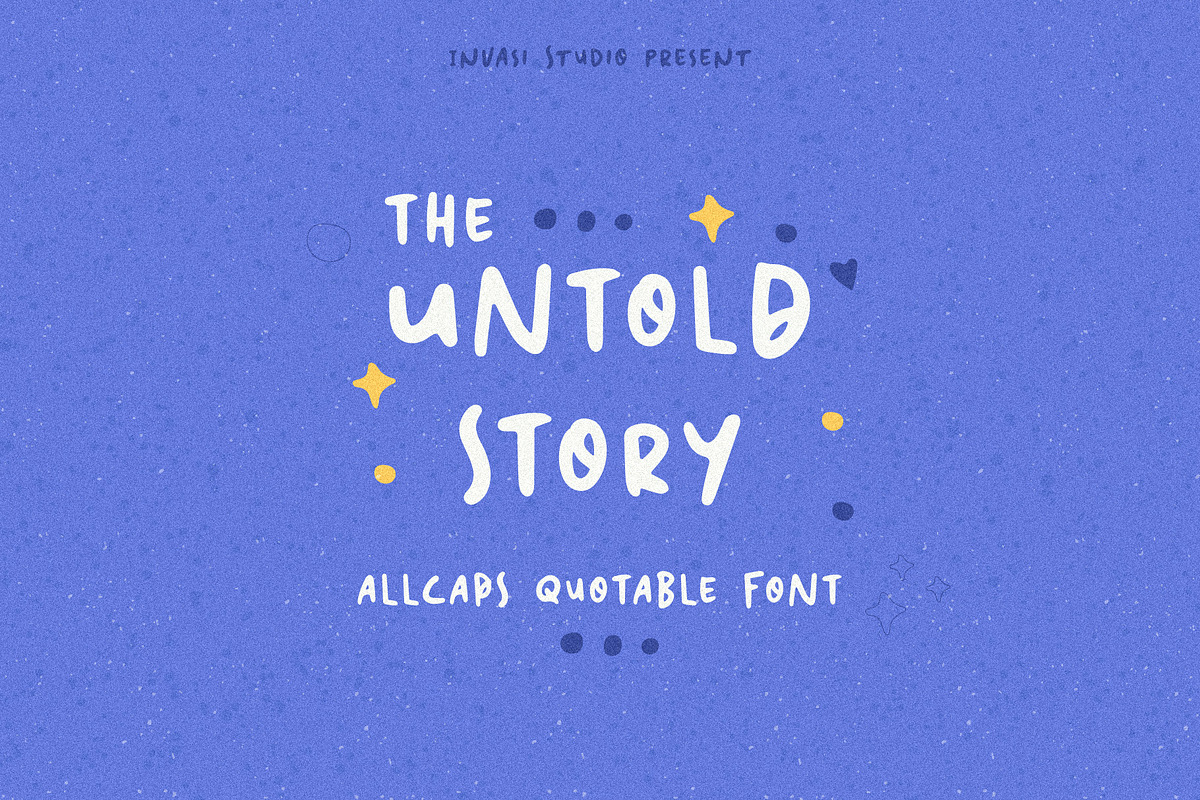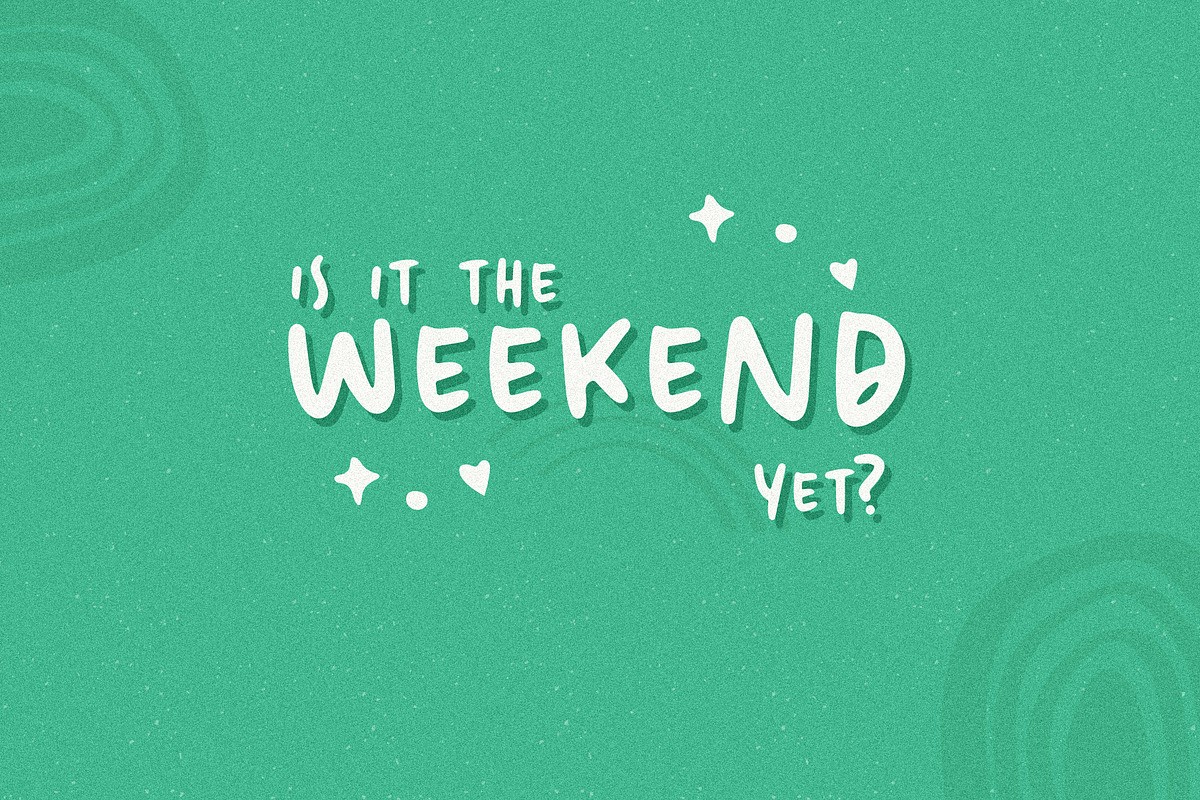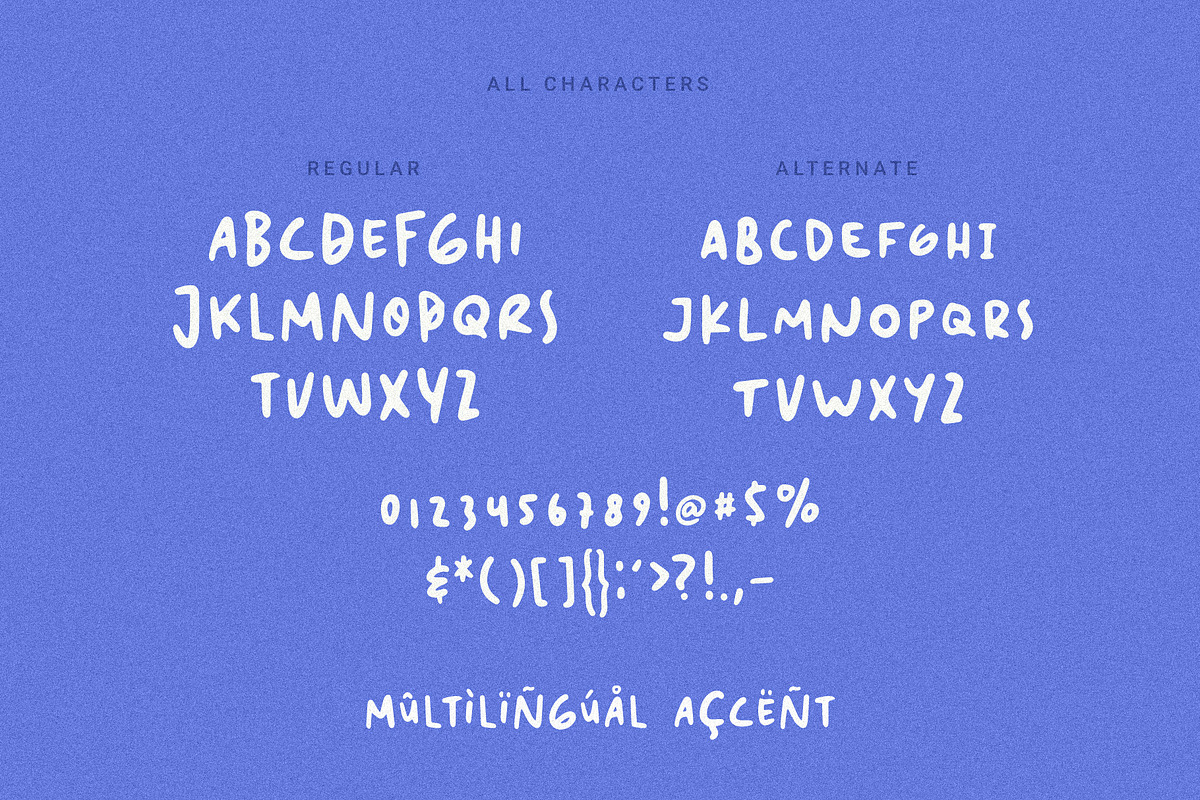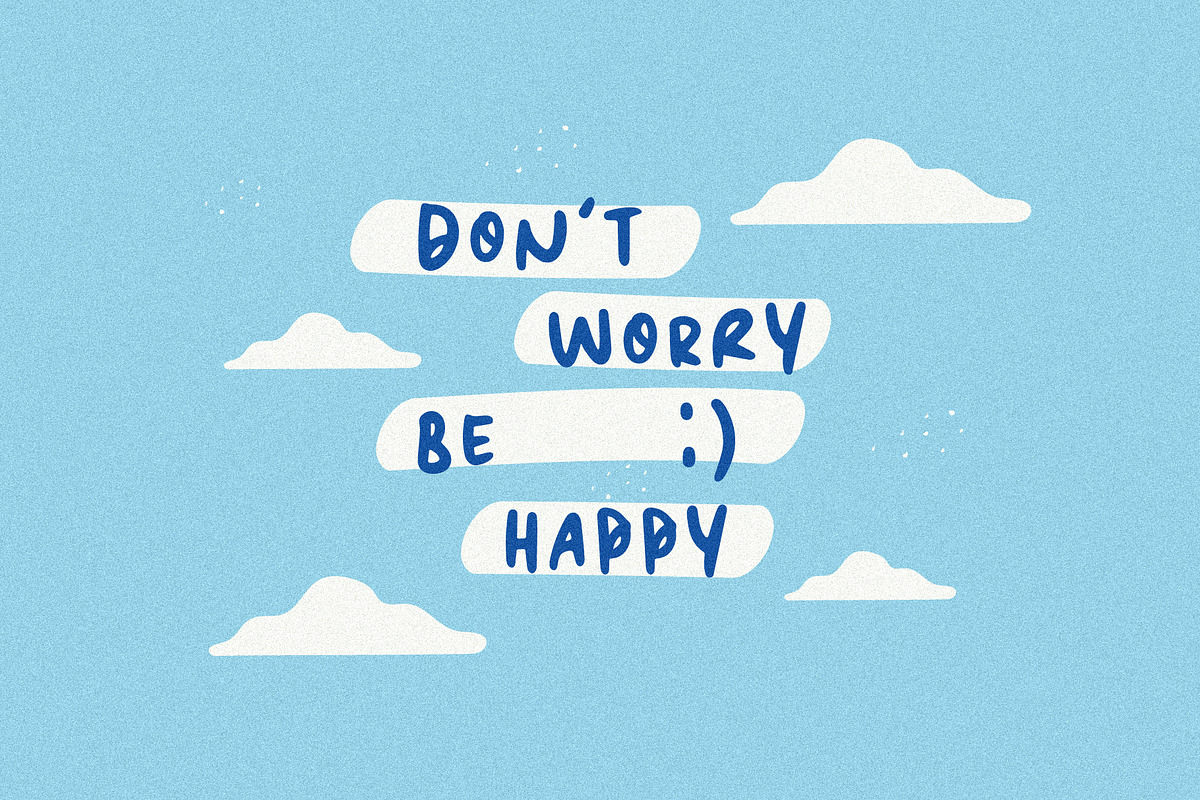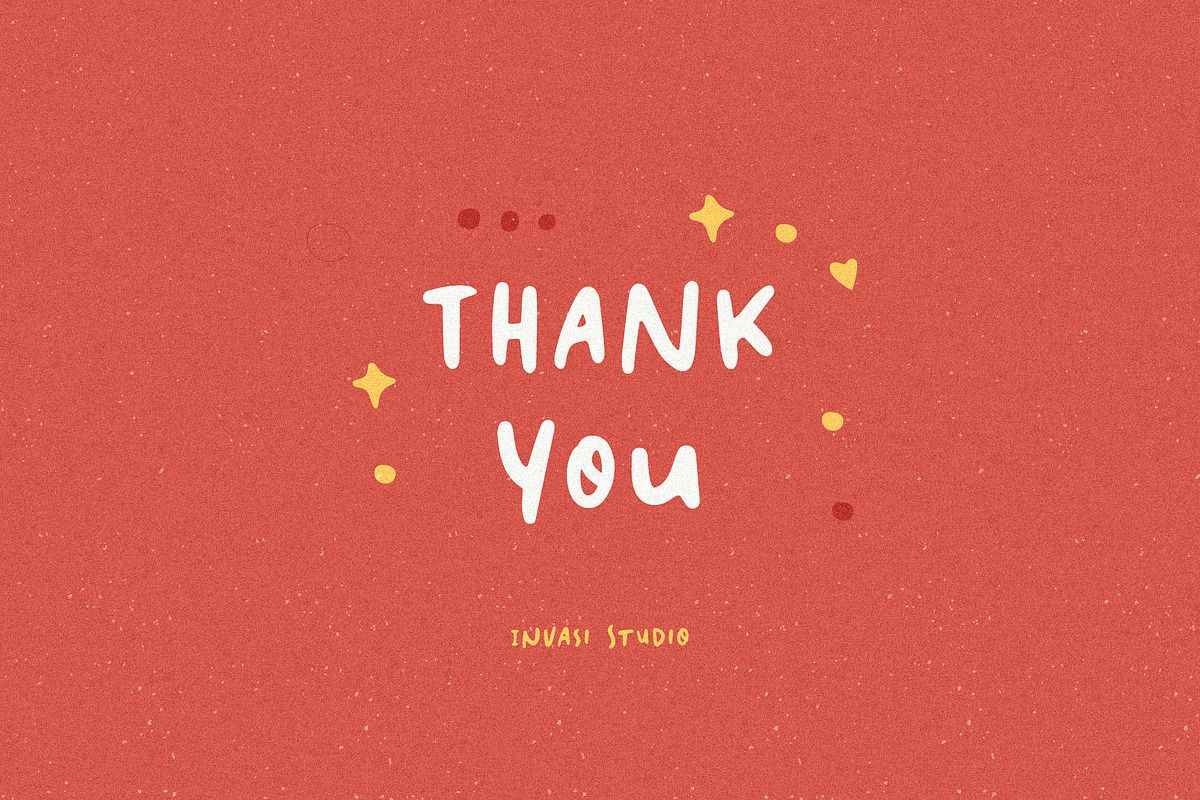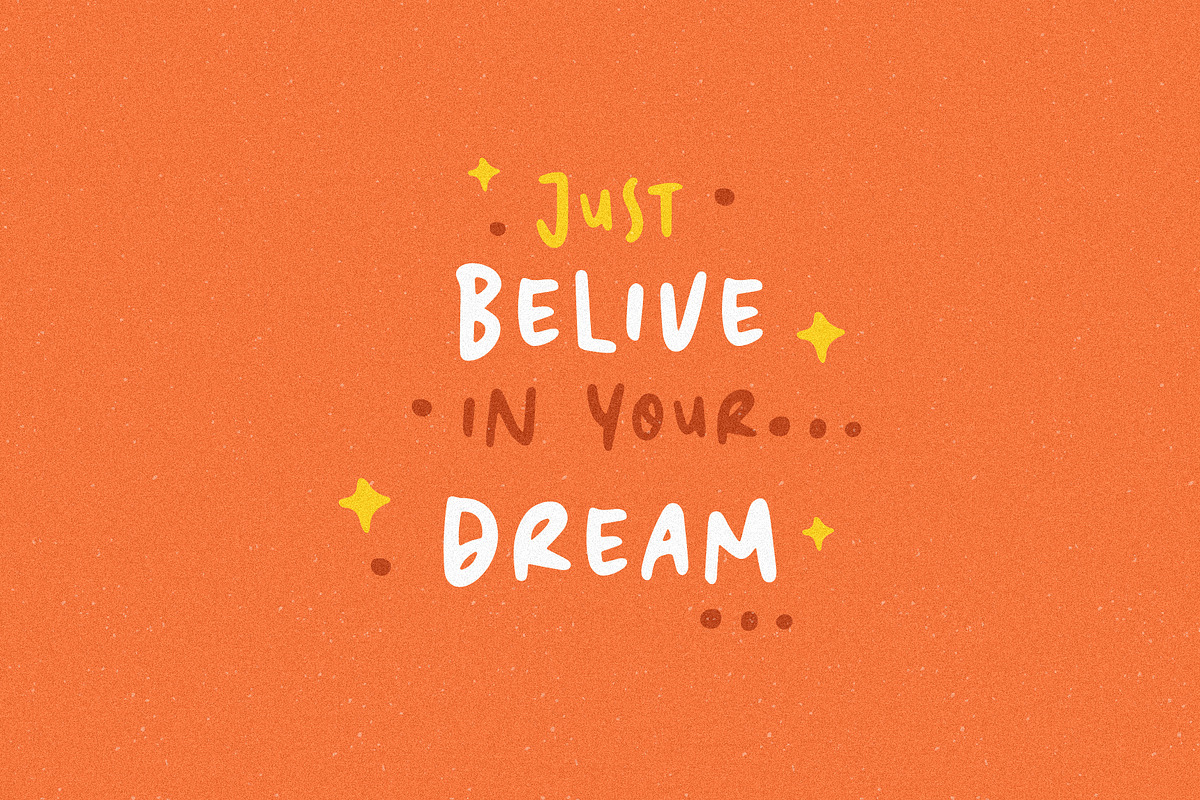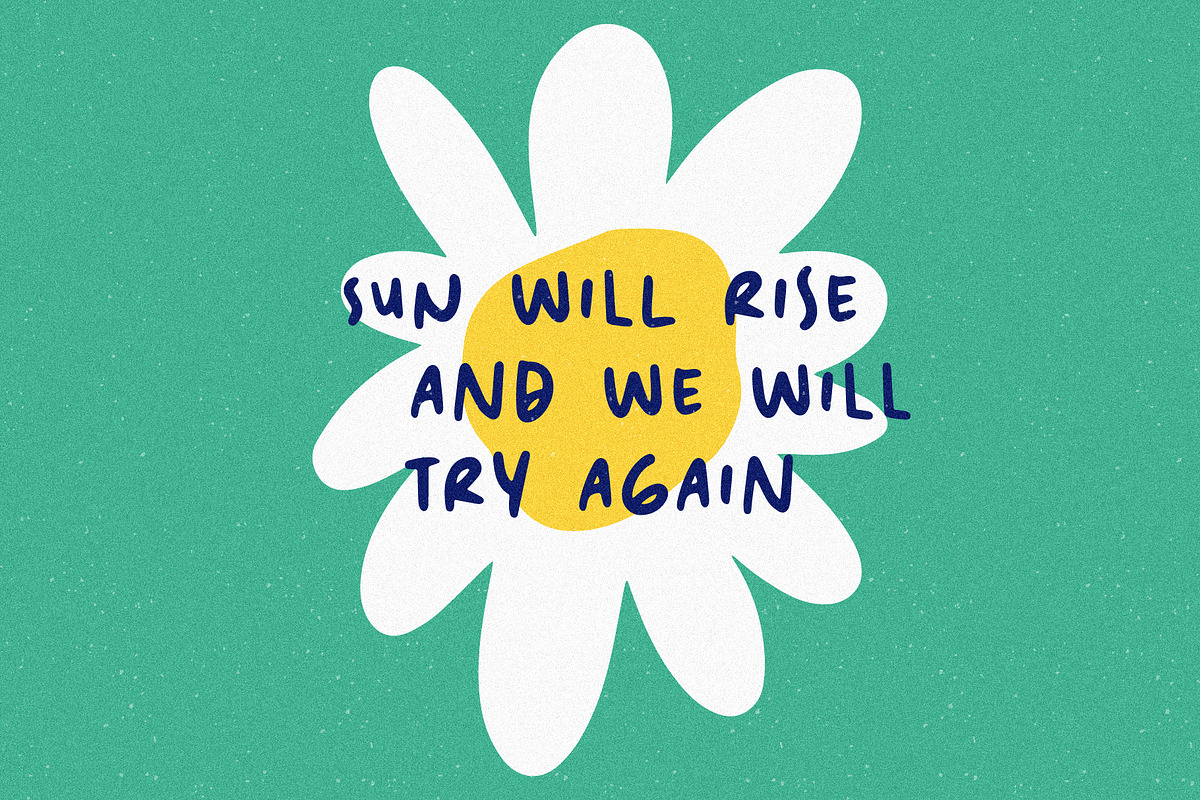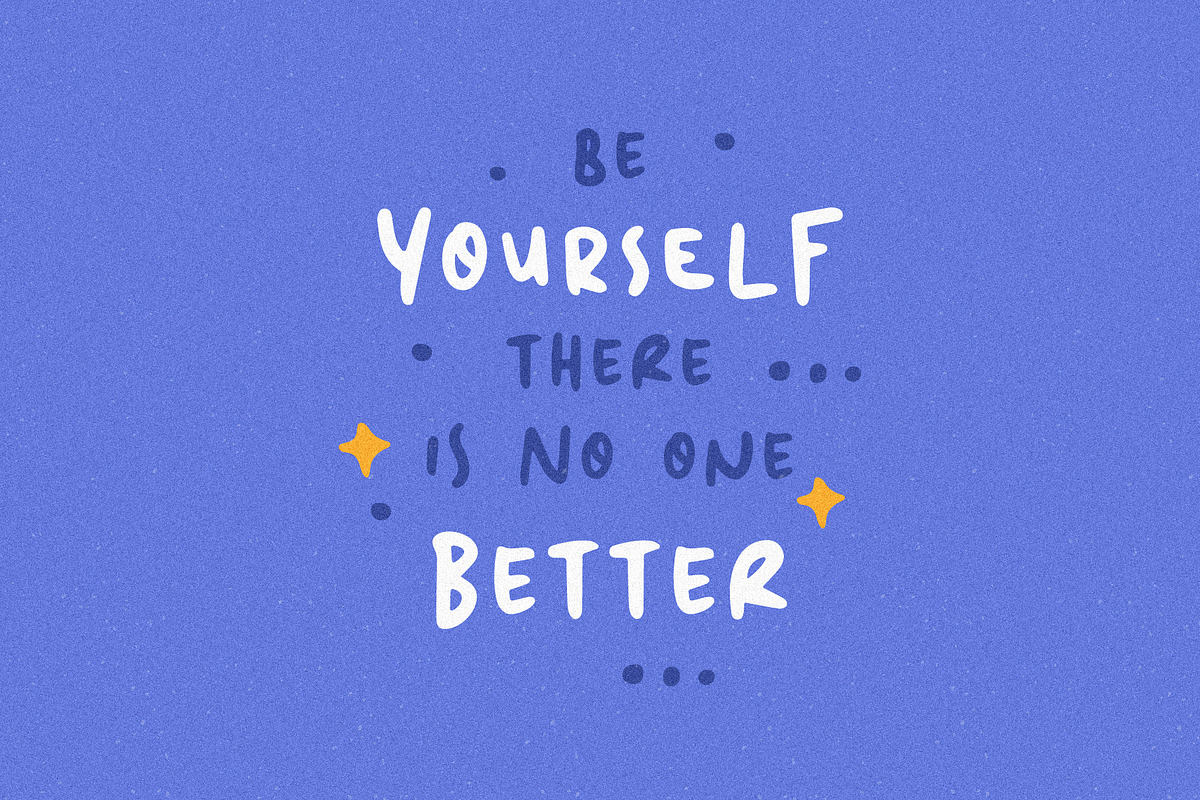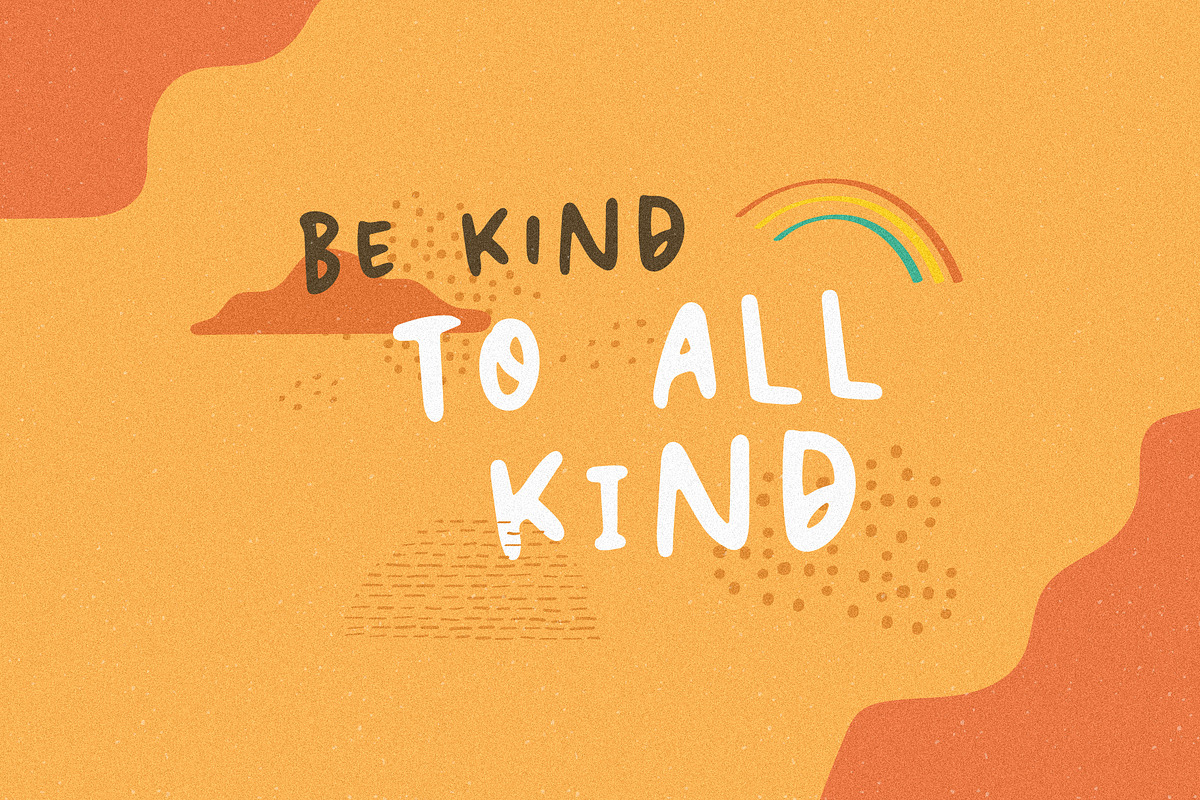
Untold Story | Quotable Font
Introduction our Quotable All-caps Font, The Untold Story is an All-caps Quotable font with Brush style font and extends kerning, special for your quote Display Design, which puts a bold on your projects and will inspire you to create something unique or playful design.
The Untold Story will help you to create special and touching typographical designs for your display quote projects, It is perfect for headings, flyers, greeting cards, product packaging, book cover, printed quotes, logotype, apparel design, album covers.
- Multilanguage